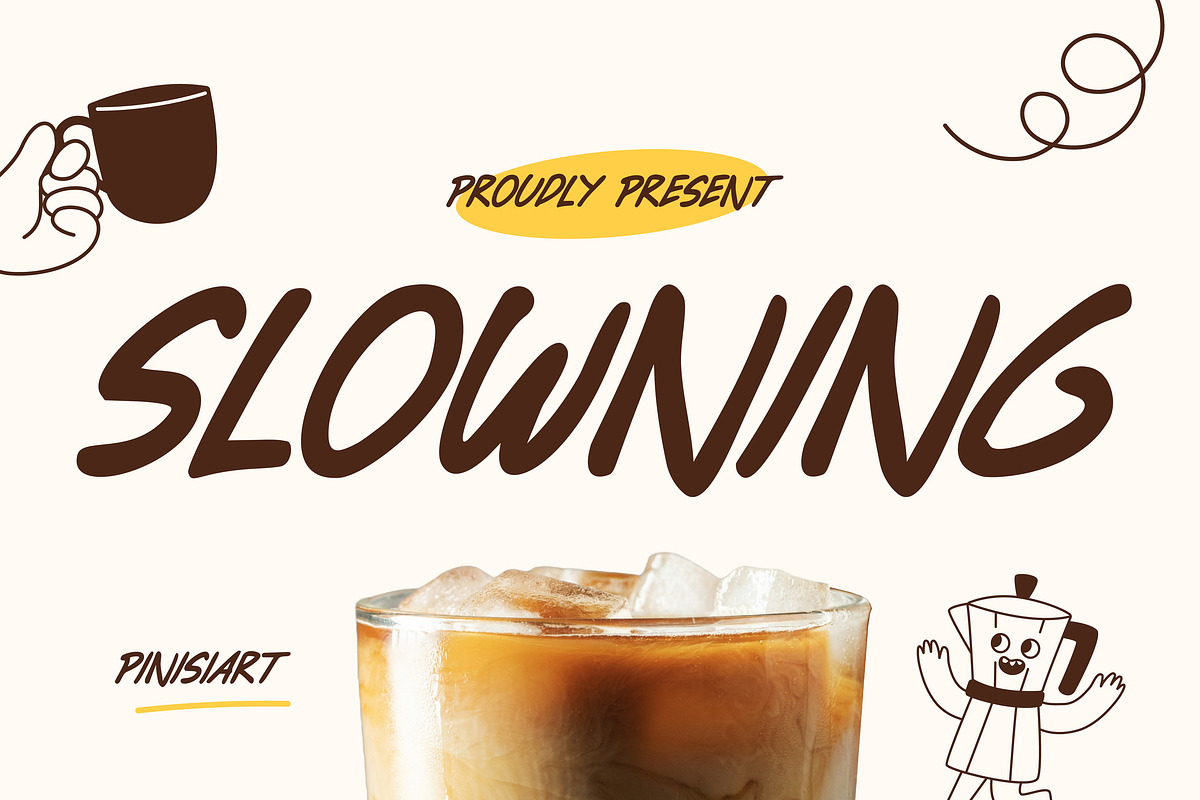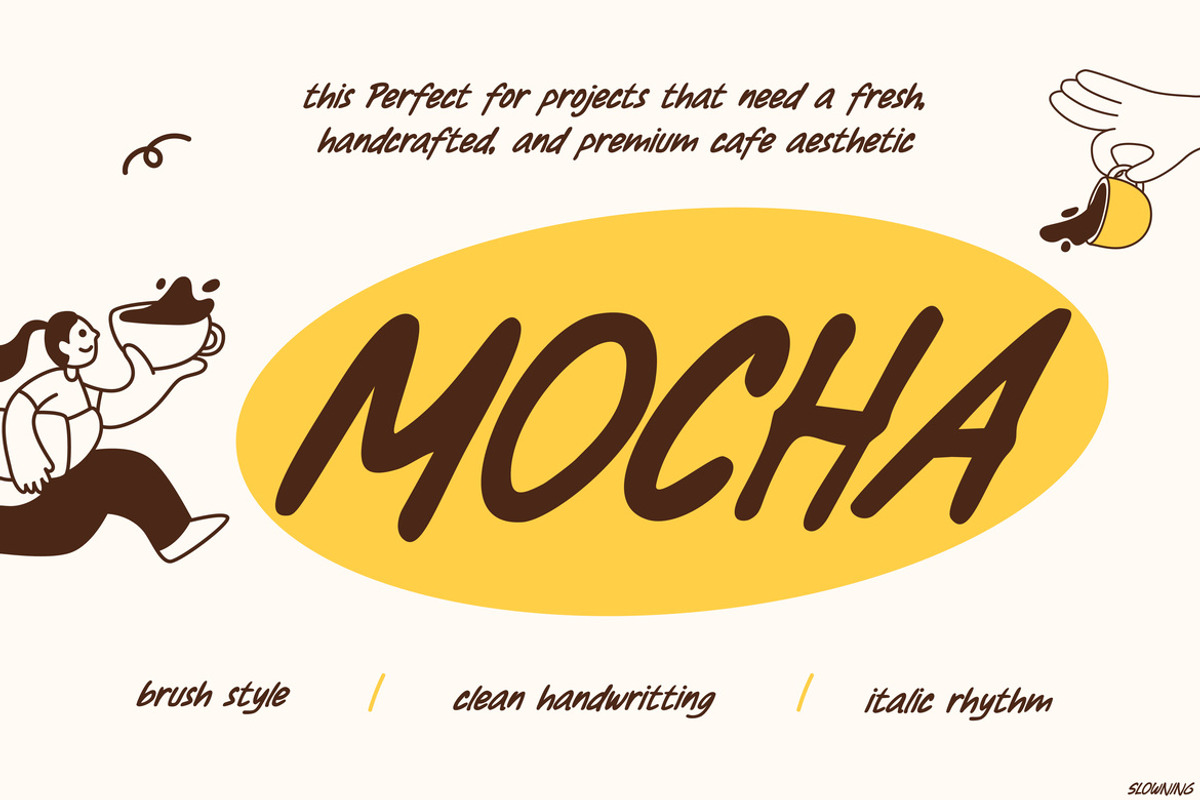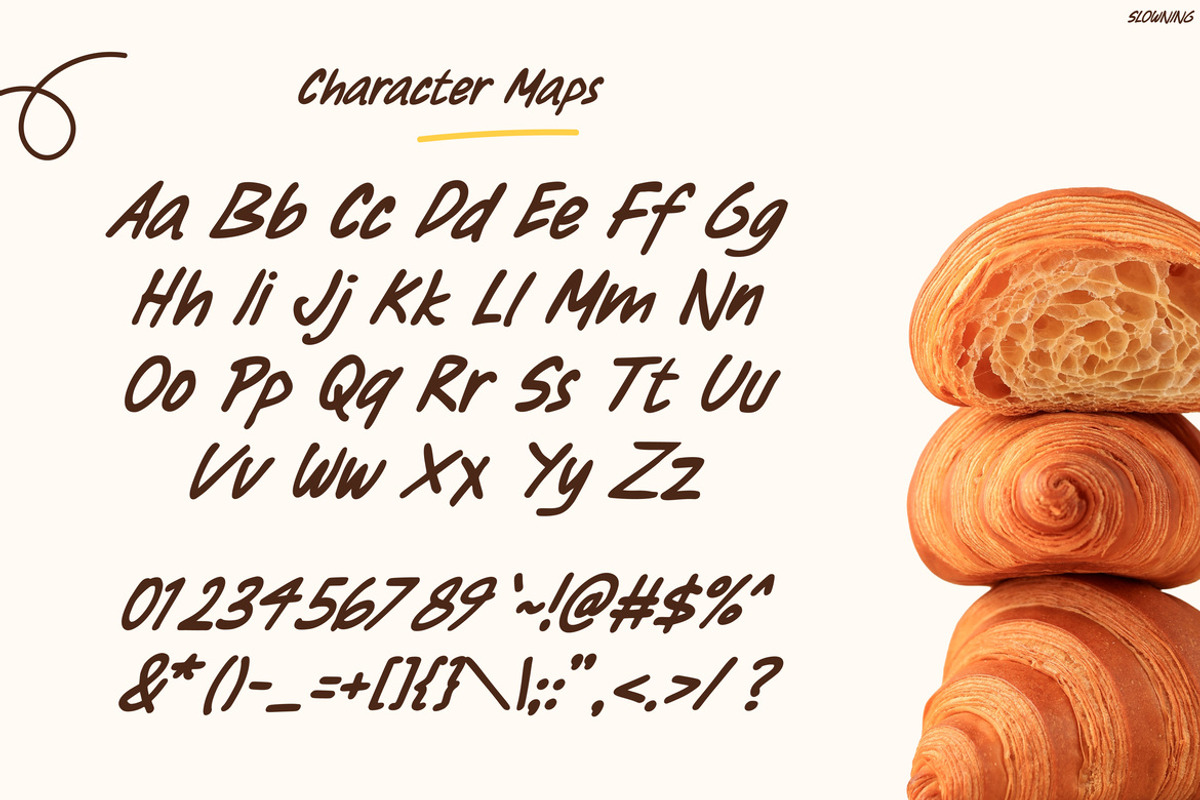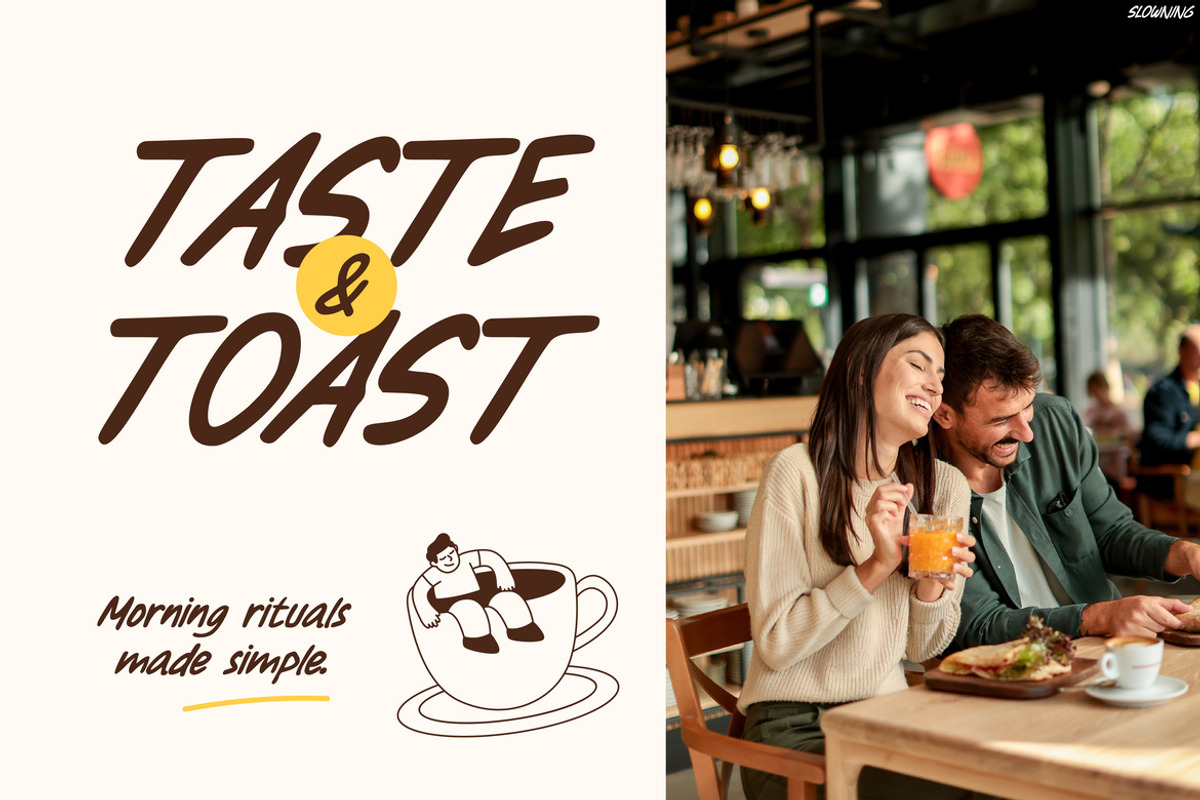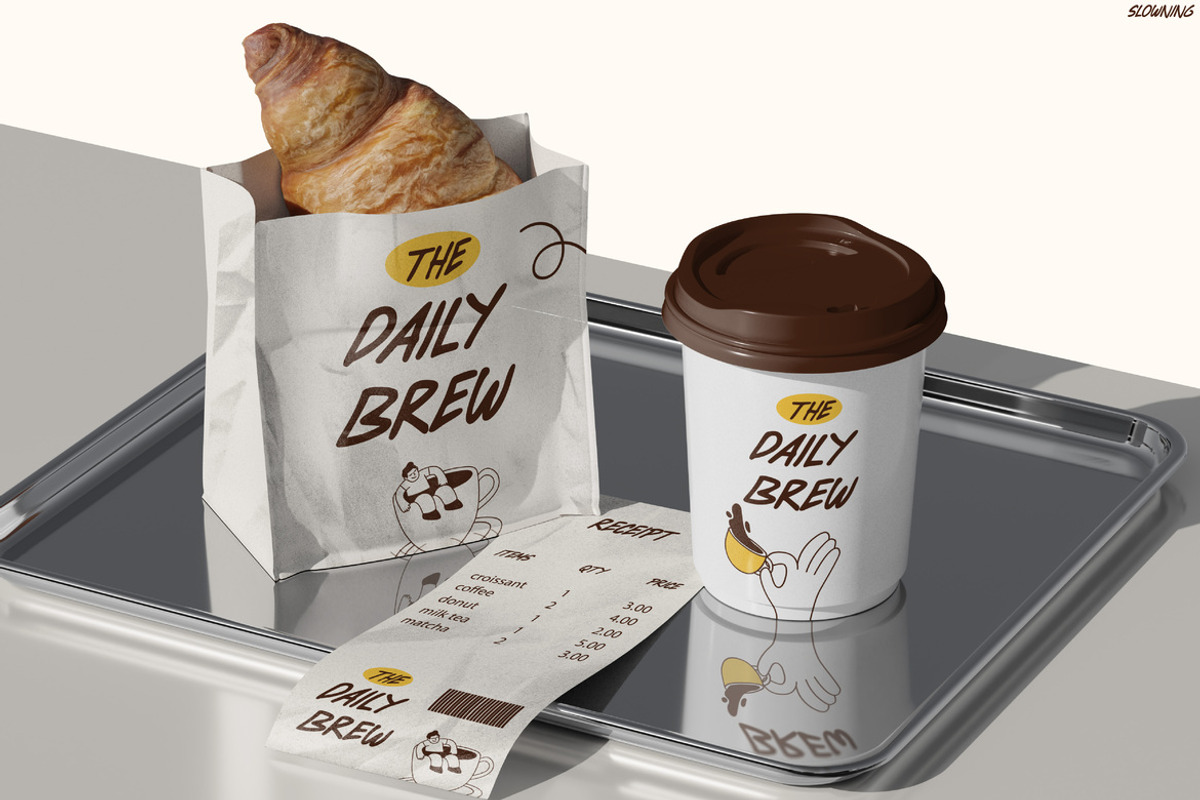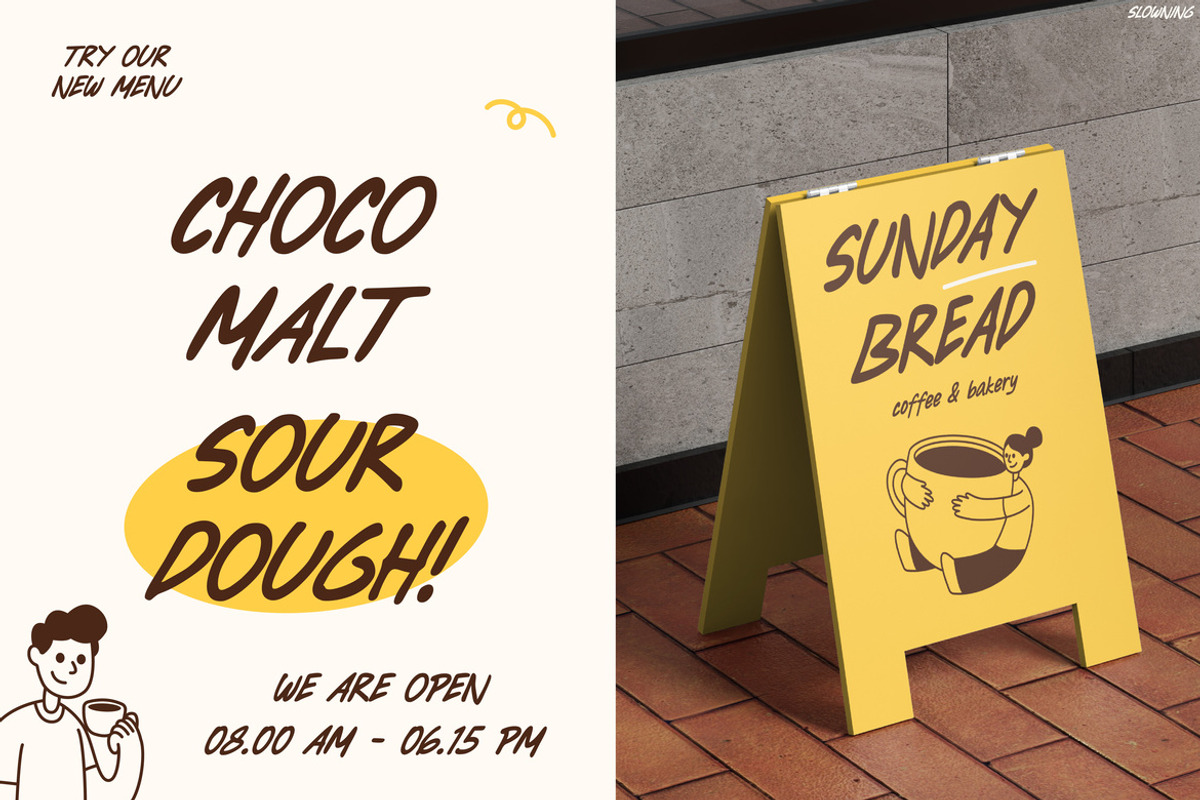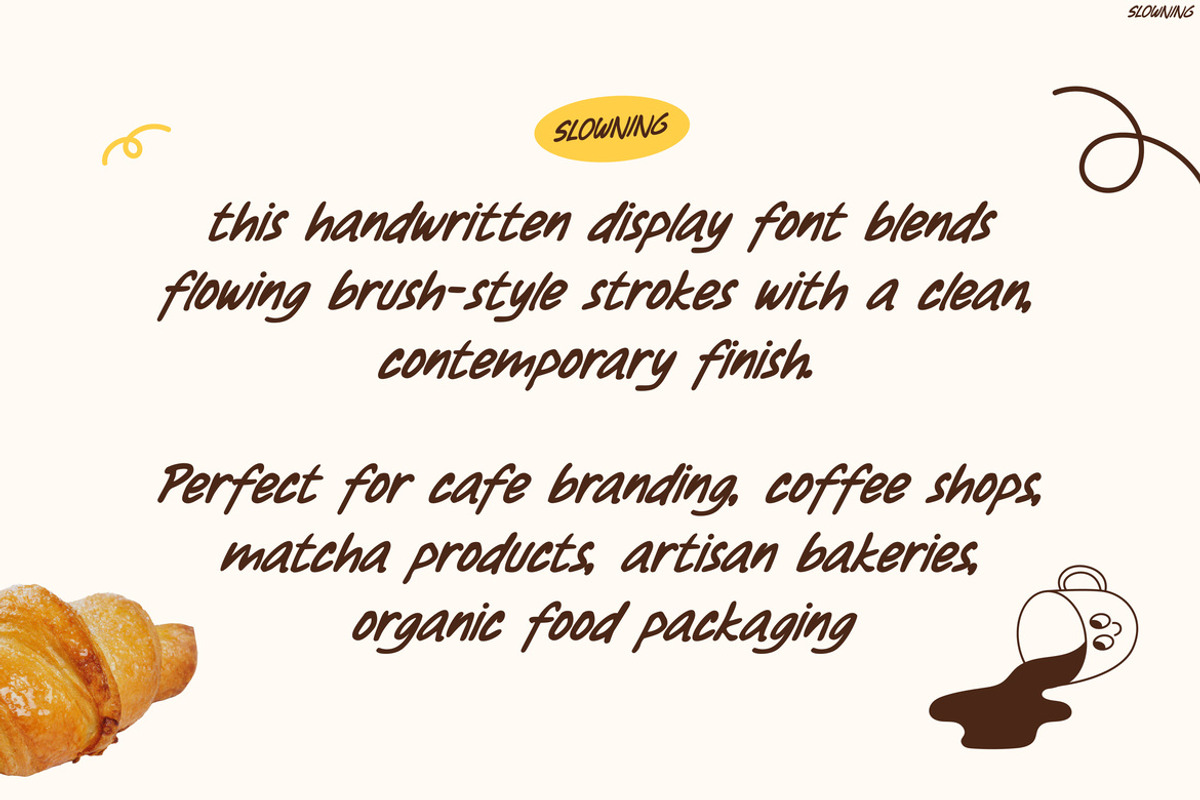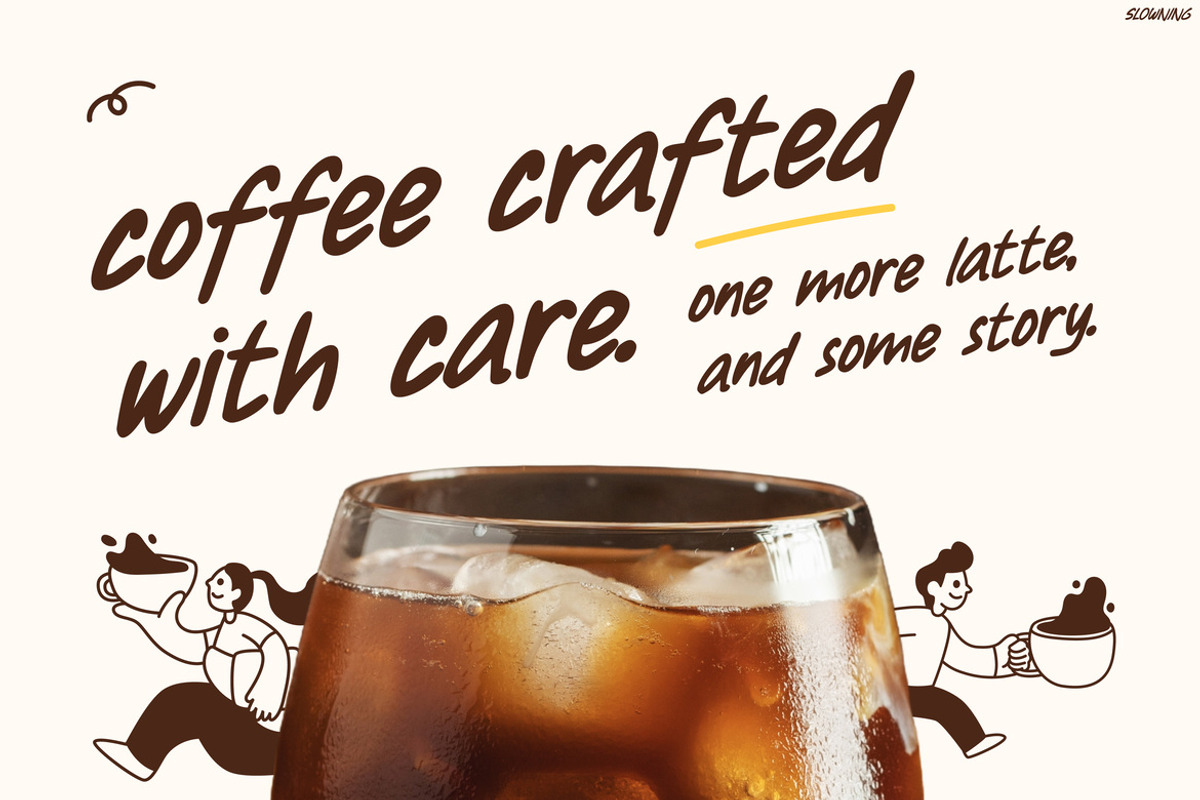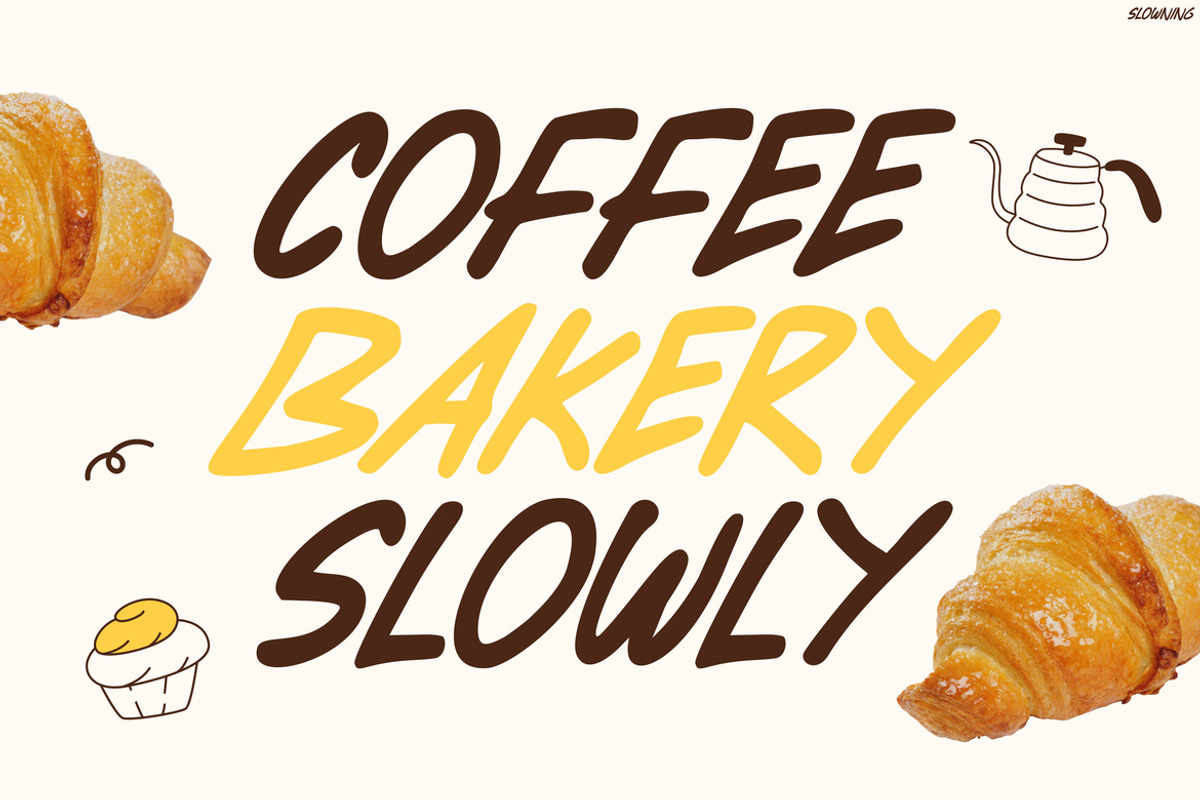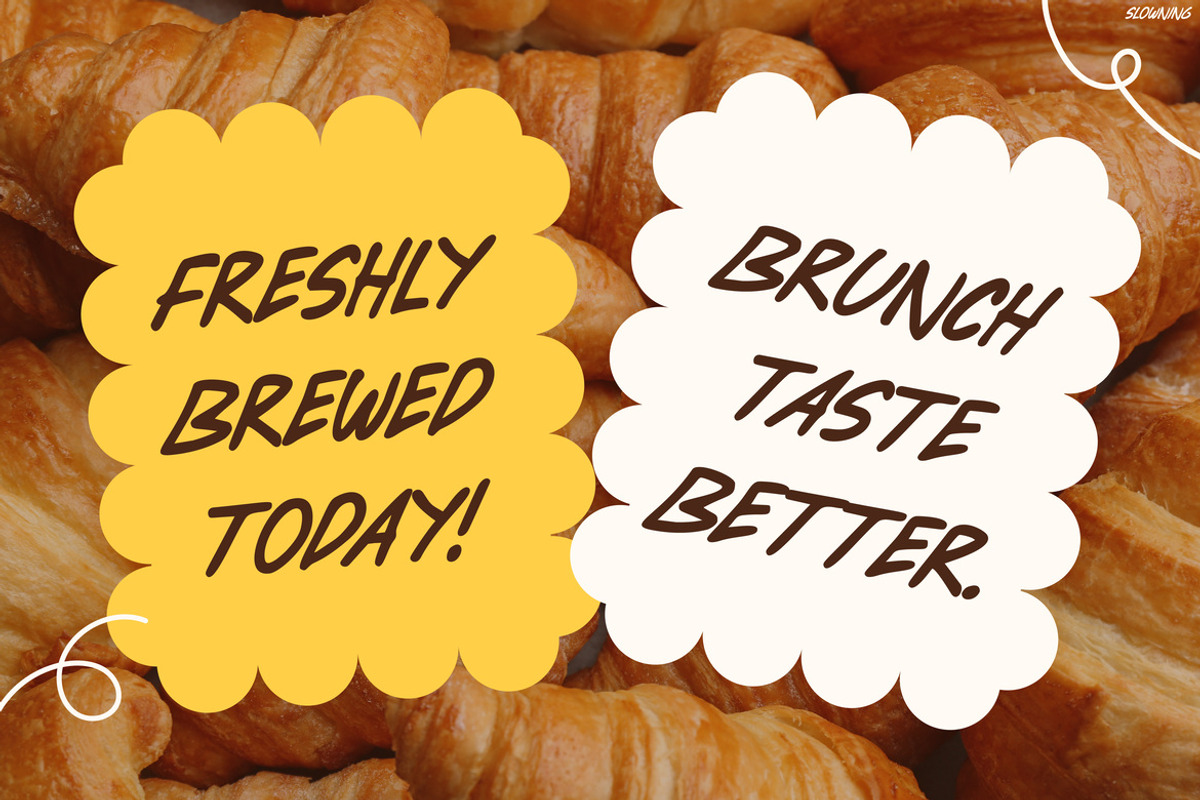
Slowning
Handwriting Font Slowning – Slow Strokes. Warm Stories. Handmade Moments.
Handwriting Font Slowning captures the comforting feeling of slow mornings, fresh coffee, and handmade creations through its flowing brush strokes and relaxed handwritten style. Unlike ordinary script fonts, Slowning blends casual movement with clean readability, creating typography that feels authentic, welcoming, and effortlessly stylish. Moreover, every letter carries a natural rhythm that makes your designs feel personal and inviting. As a result, every headline tells a story instead of simply displaying text. In addition, its handcrafted appearance pairs beautifully with cozy branding and lifestyle visuals, so your designs instantly create a warm emotional connection. Whether you’re building a café identity or designing artisan packaging, Slowning delivers charm in every stroke.